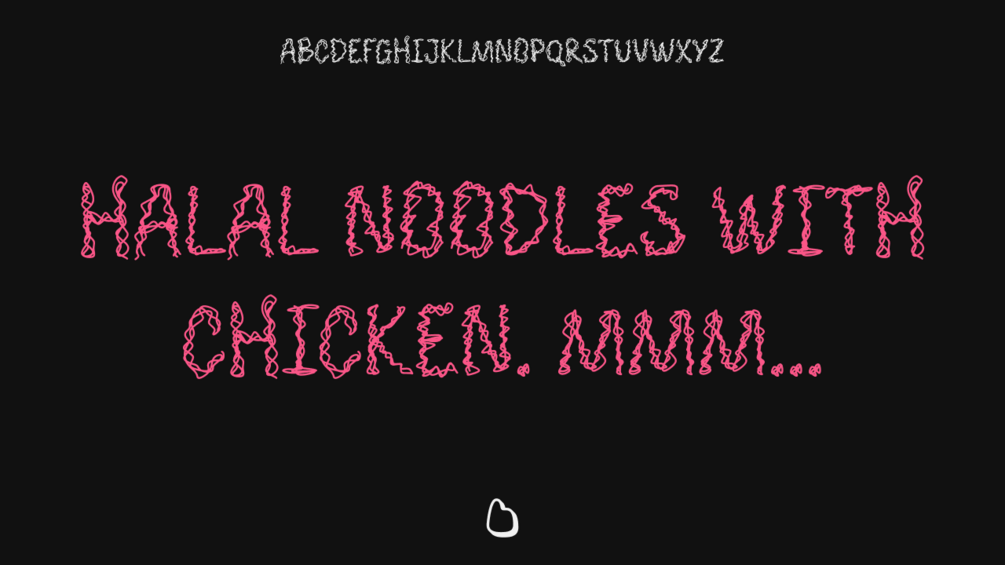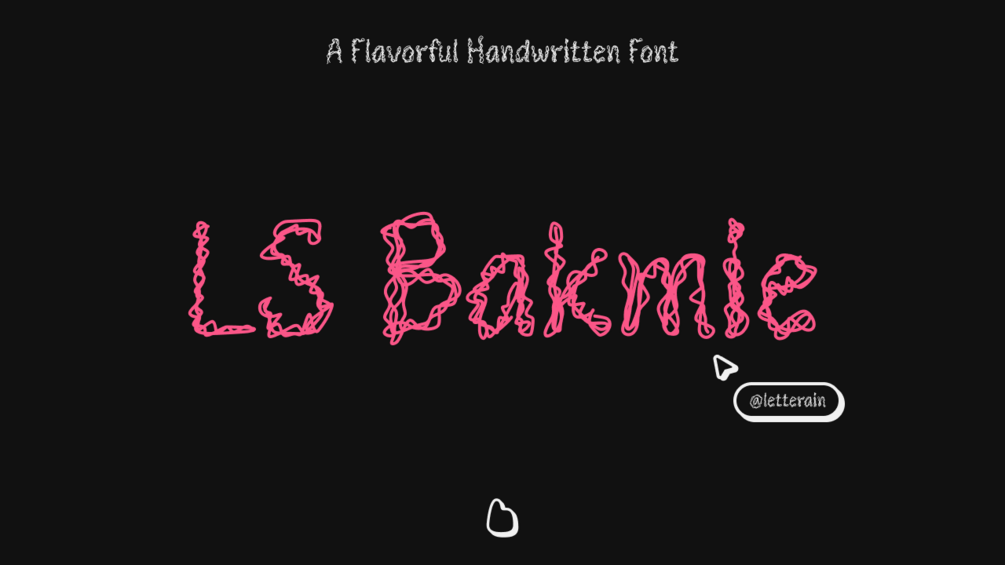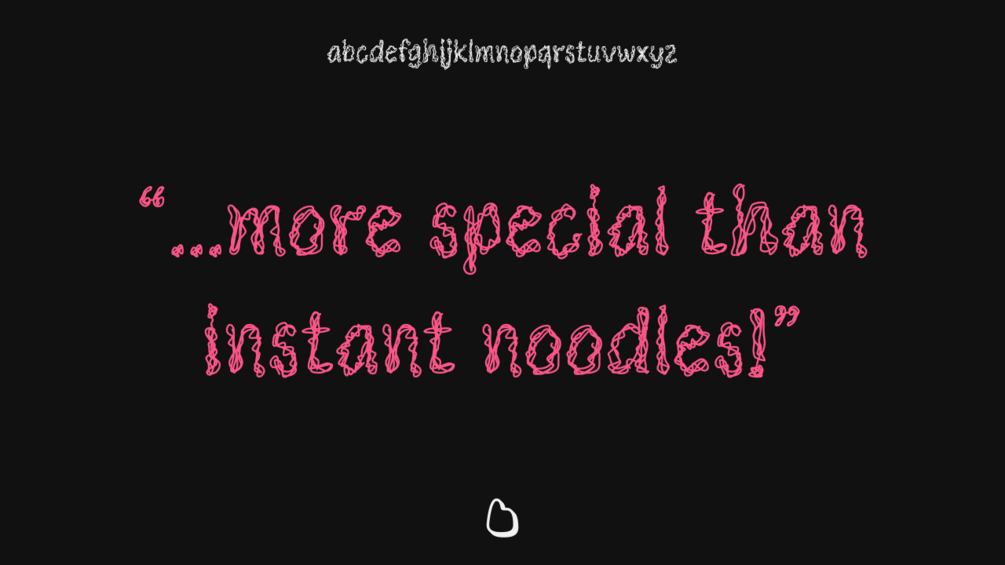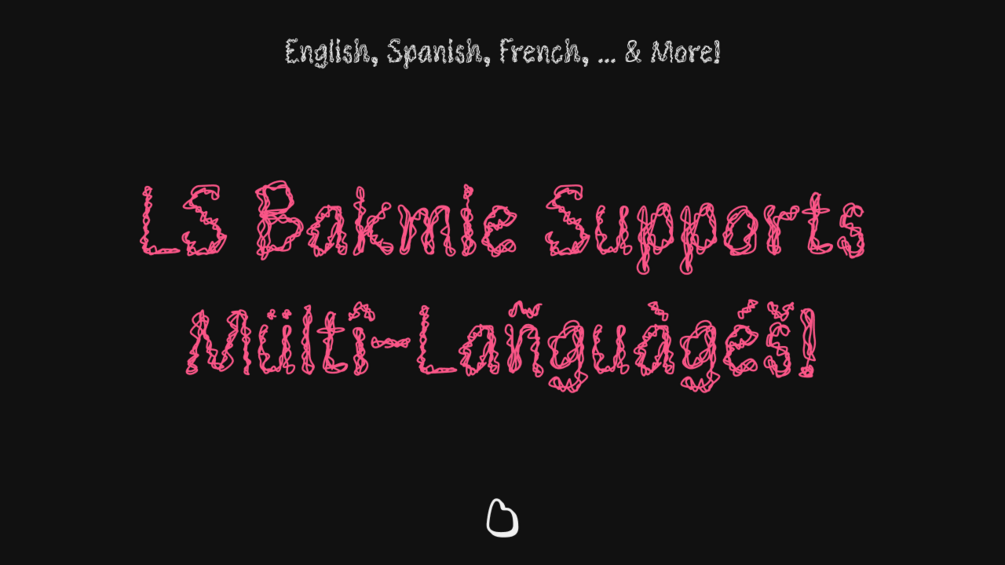
LS Bakmie - A Flavorful Handwritten Font (002/365)
π Alright, Bakmie lovers, let's get slurpin'!
π² Spice up your designs with LS Bakmie, the fiery second font from Letterain Studio. Inspired by Solo's legendary noodles, this spicy-hot beauty dances on your screen with personality and joy.
π Key Features:
- Flavor for every language: Speak to the worldβLS Bakmie supports a wide range of languages, so your designs can cross borders with ease.
πΌοΈ Imagine:
- Posters sizzling with flavor.
- Branding warm and comforting like a noodle hug.
- Invitations that RSVP faster than you can say "Bakmie!"
π£ LS Bakmie ain't just a font, it's a flavor bomb for your designs!